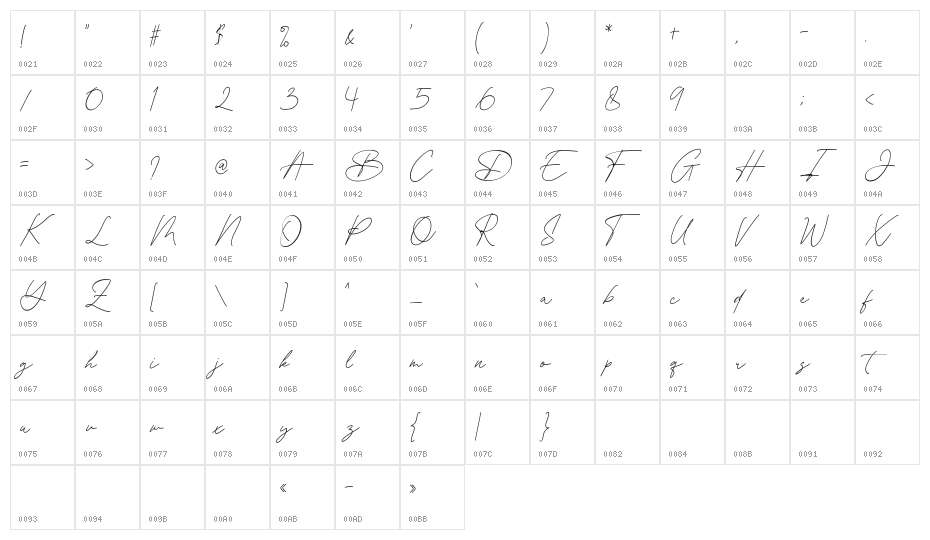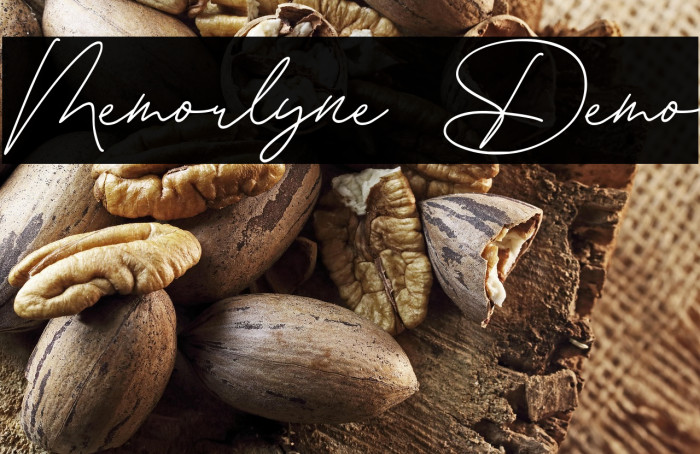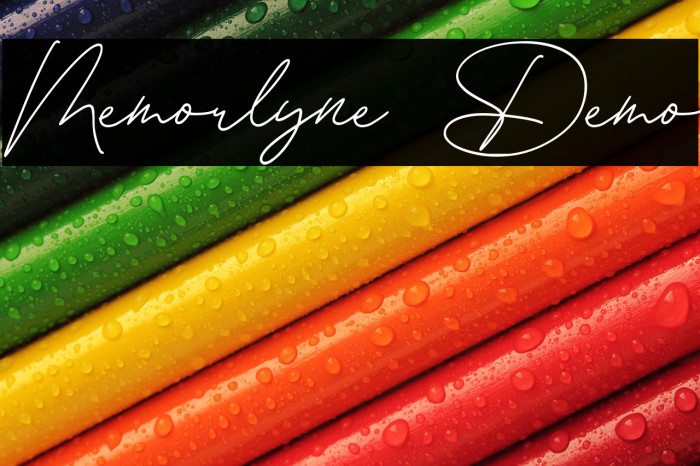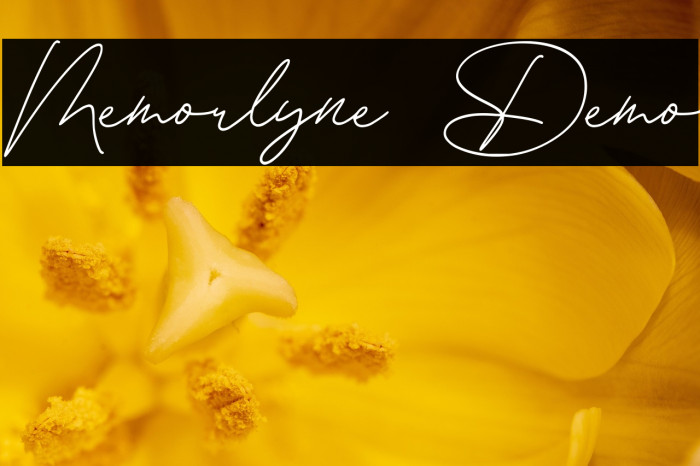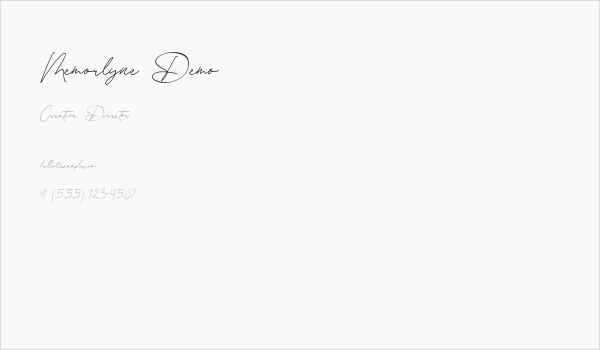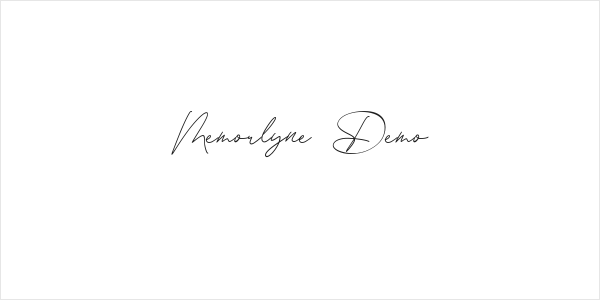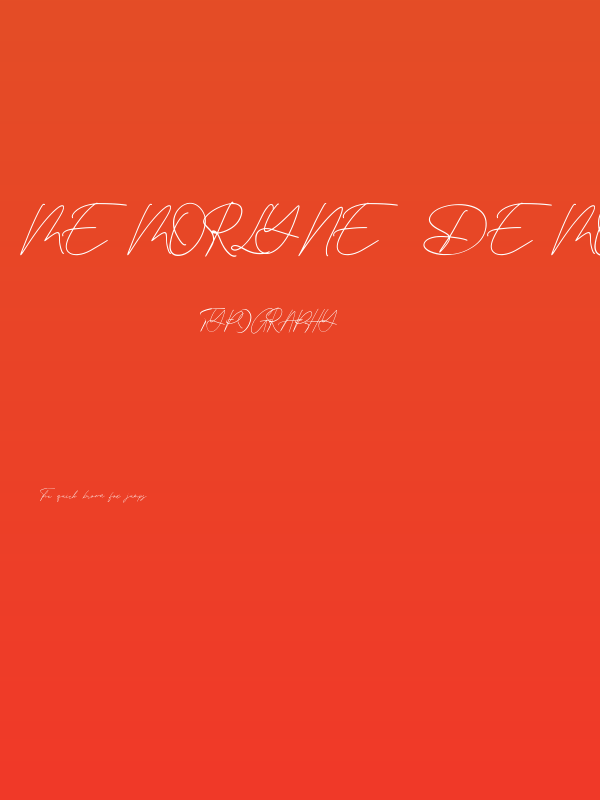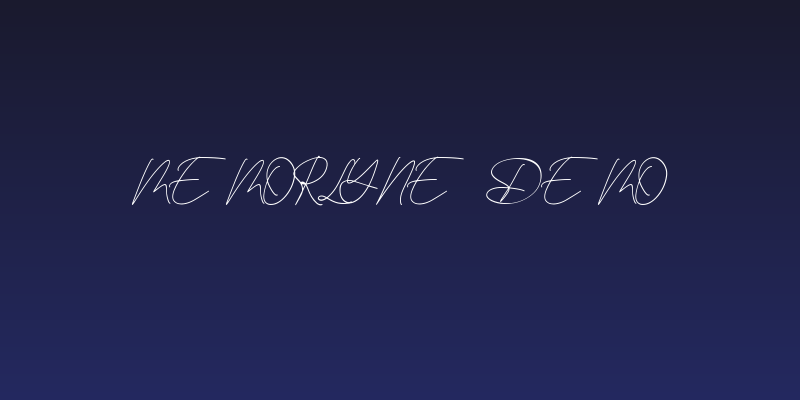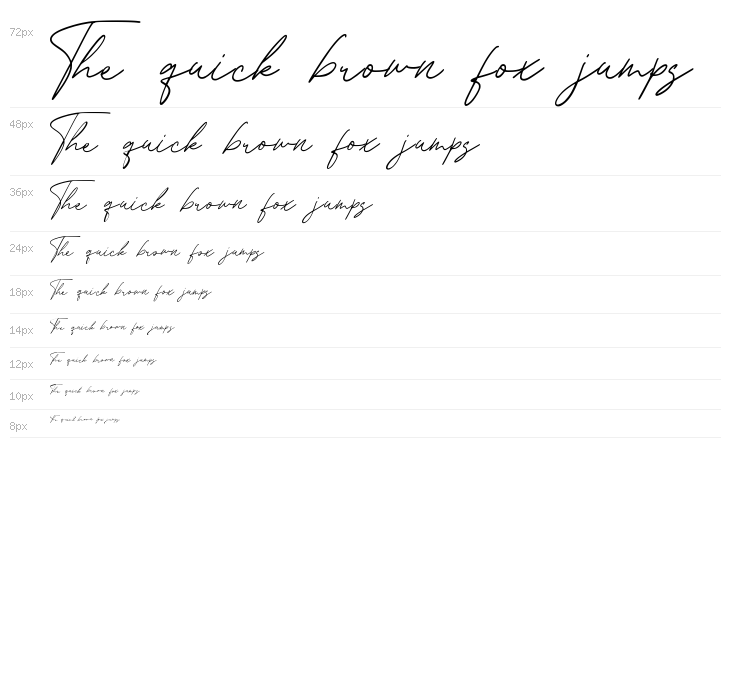
Memorlyne Demo Font
Memorlyne Demo Description
This font features a flowing, cursive style that mimics elegant handwriting. The letters are interconnected, creating a seamless and fluid appearance. The strokes are thin and delicate, with a consistent slant that adds to its graceful aesthetic. The uppercase letters are slightly larger and more pronounced, while the lowercase letters maintain a uniform height, enhancing readability. Numbers and special characters are crafted with the same attention to detail, ensuring a cohesive look across all elements. This font exudes sophistication and charm, making it ideal for projects that require a personal touch.
| Use Case | Headlines, Invitations, Branding |
| Proposed Projects | Ideal for wedding invitations, personal letters, branding for luxury products, and elegant event signage. |